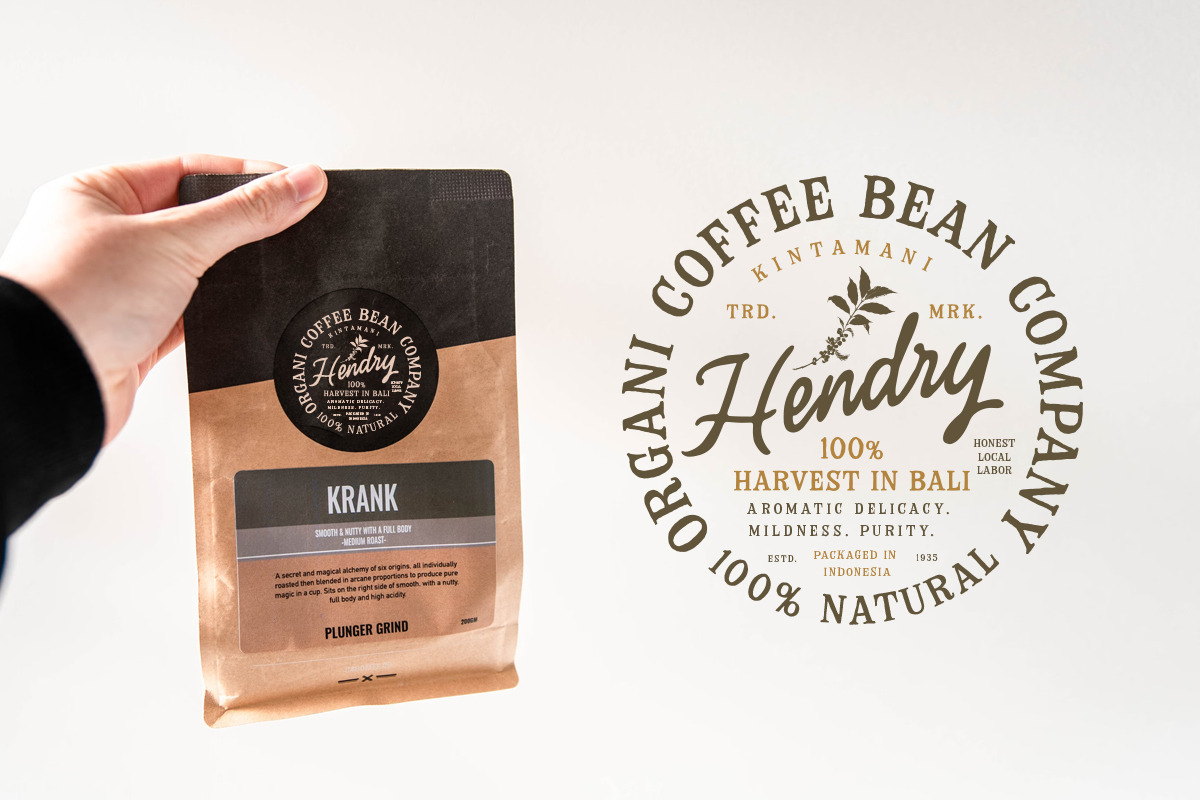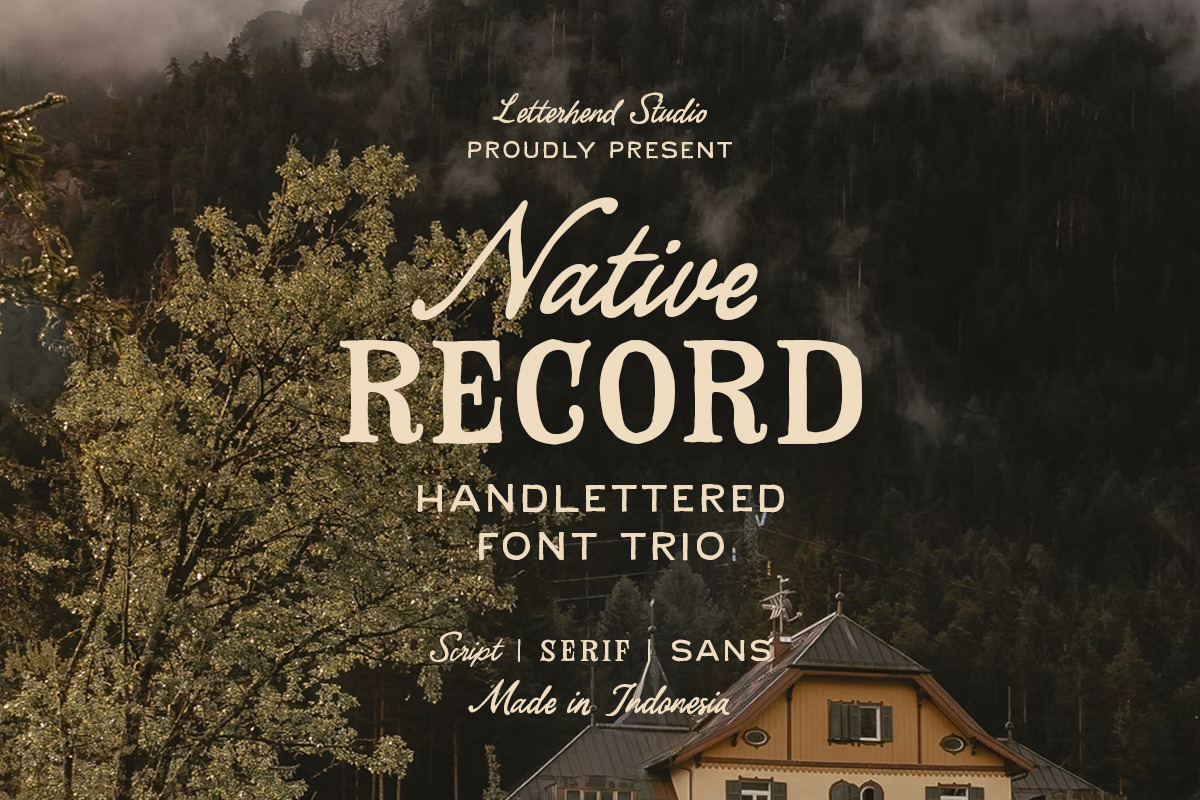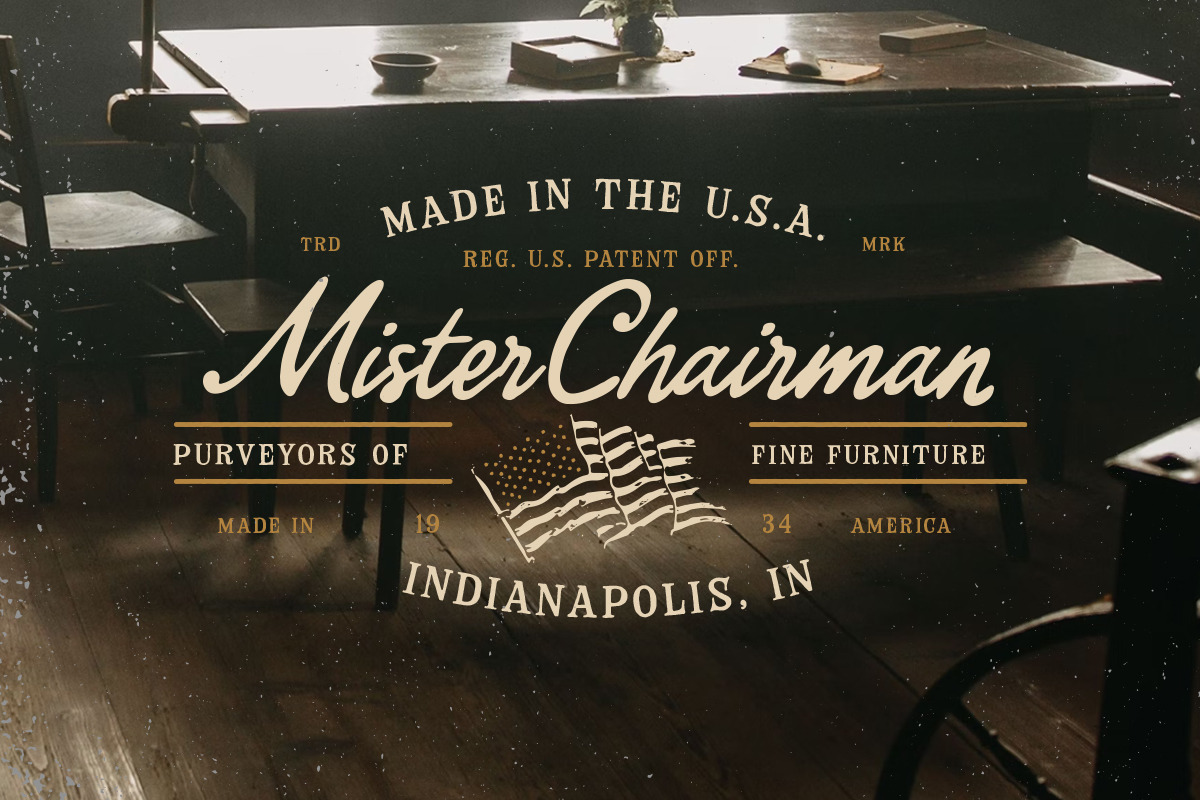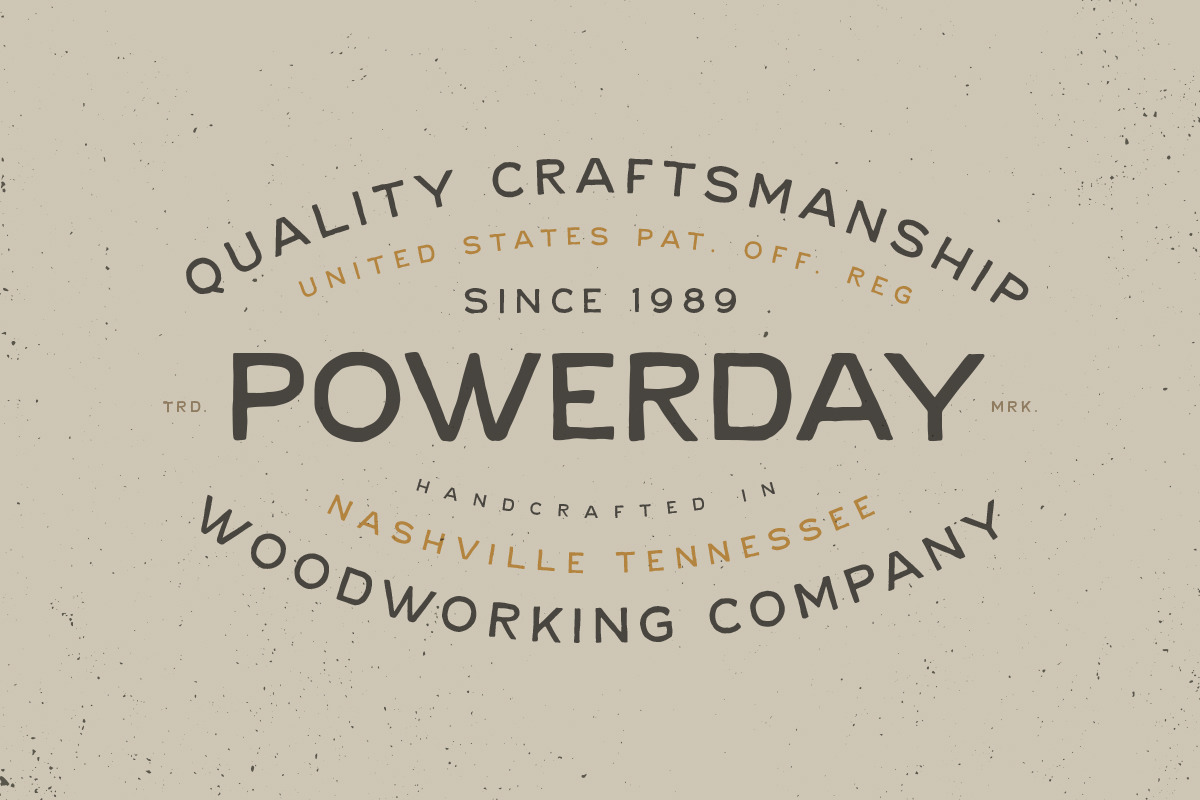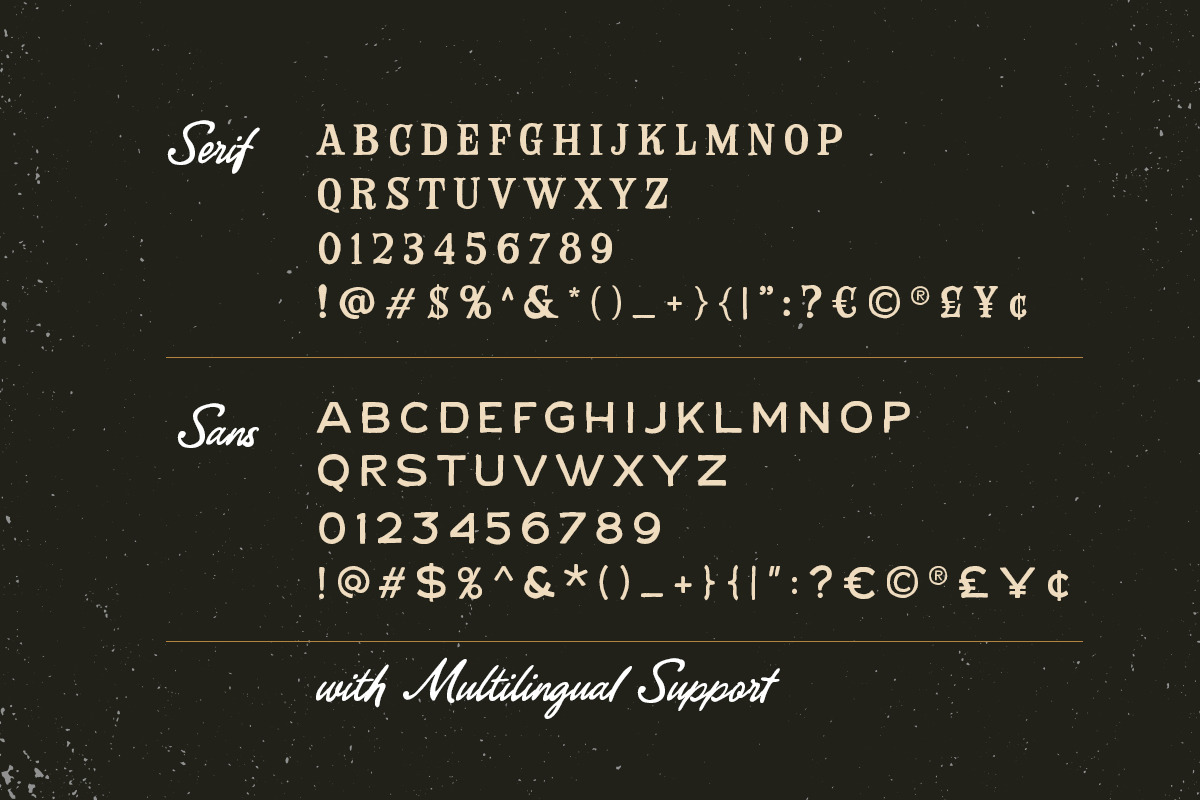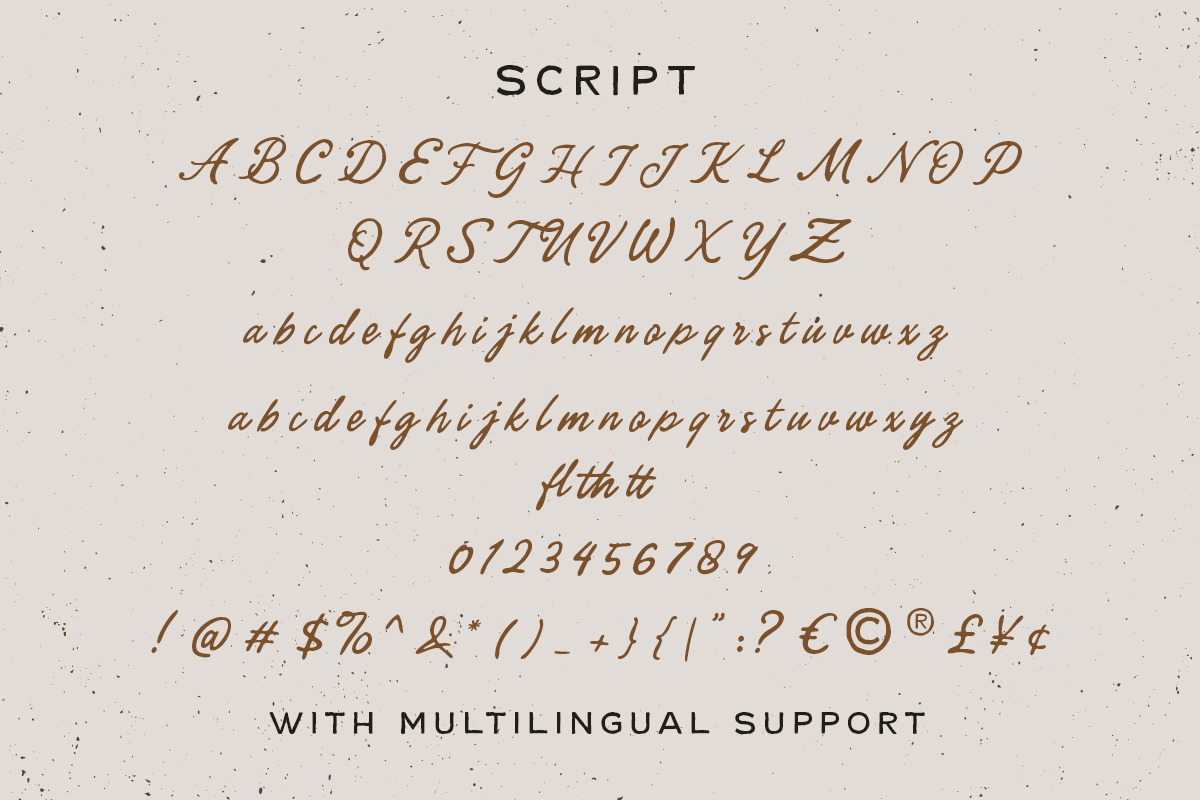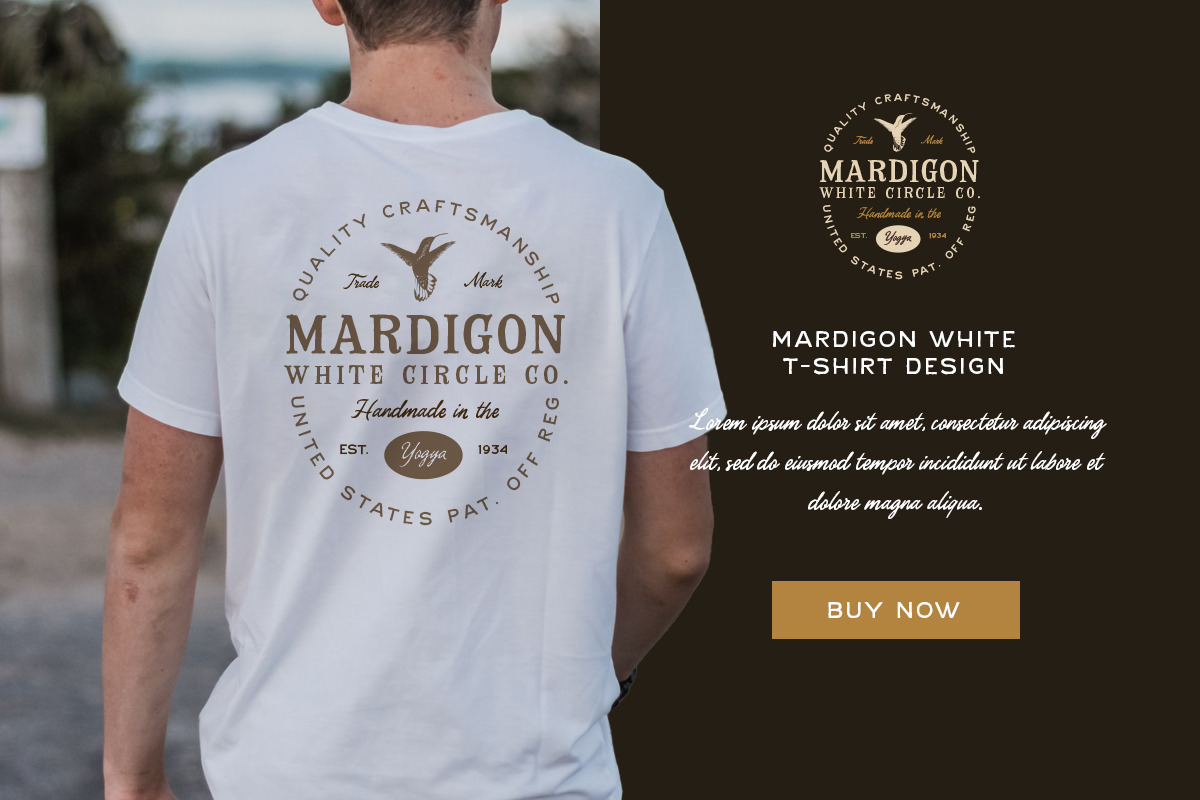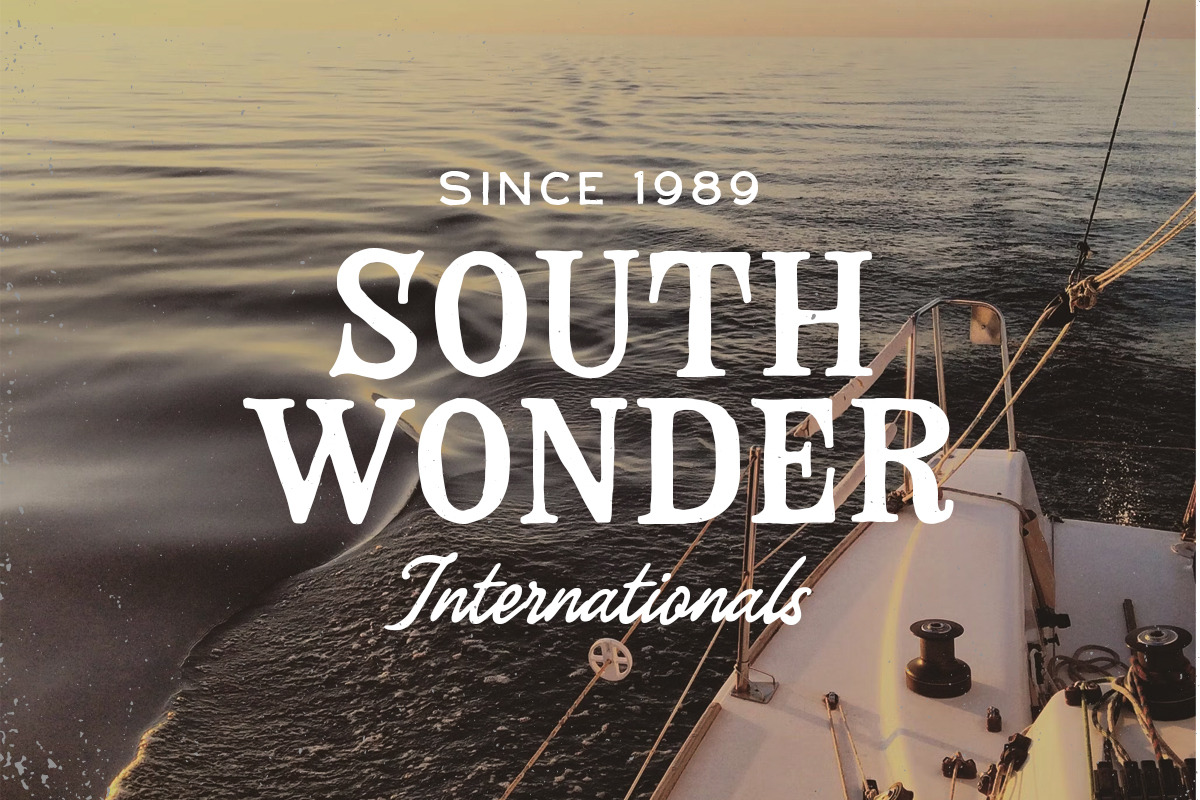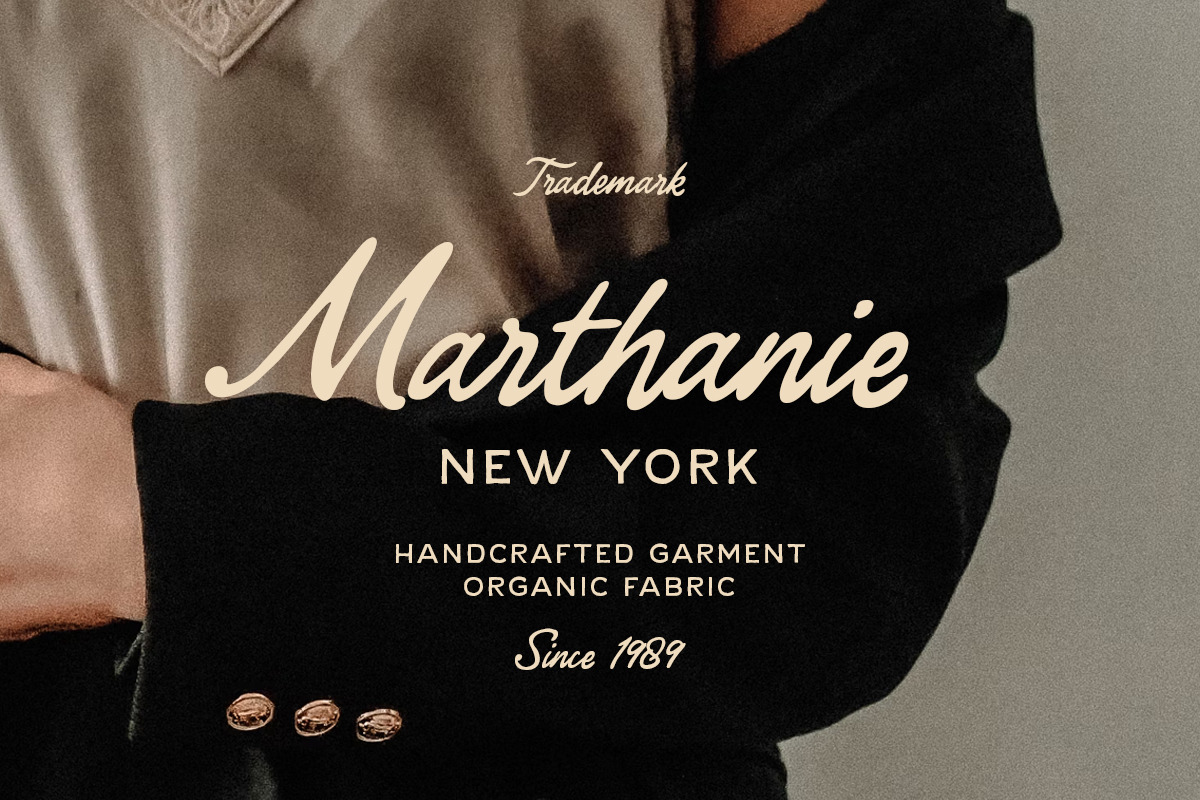
The Native Record Font Trio
The Native Record font trio is a true country classic, bringing the warmth of handcrafted lettering and the charm of old-time typography right to your designs. It comes witj sans, serif and script. Together, these styles create a versatile and dynamic combination that enhances both traditional and contemporary design projects.